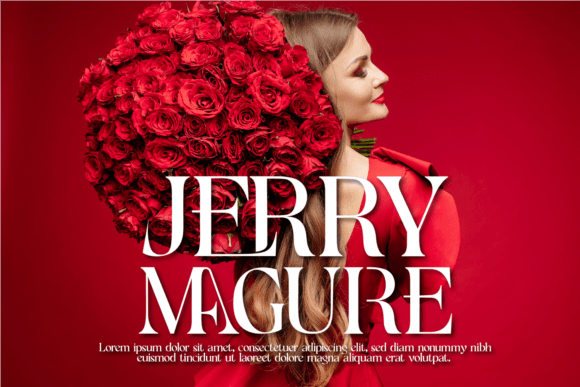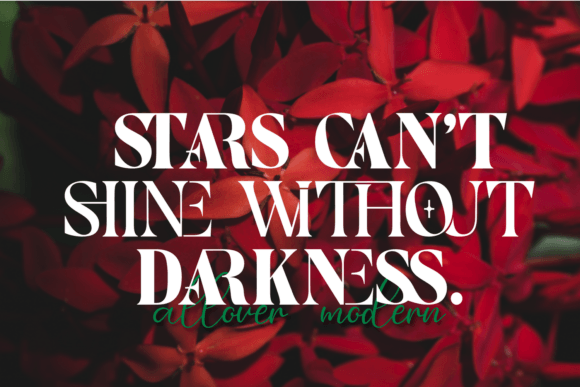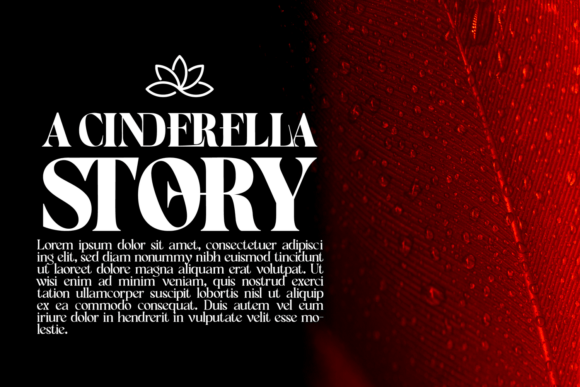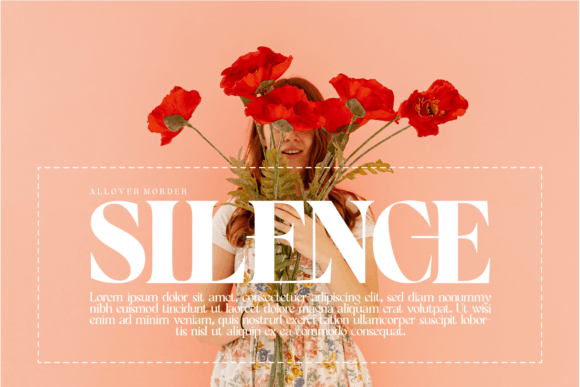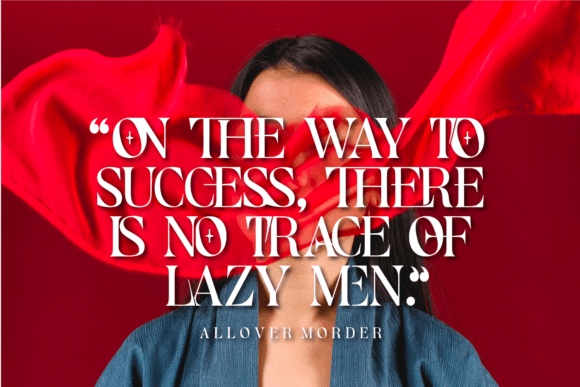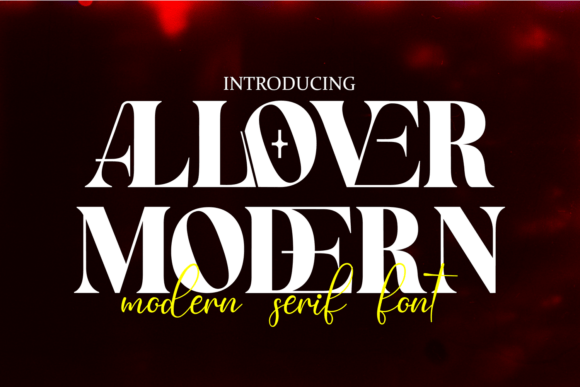
Introducing Allover Modern Font: Elevate Your Design with Elegance and Sophistication
In the world of typography, a font can make or break a design. For designers and crafters looking to add a touch of elegance and sophistication to their projects, the Allover Modern Font is an excellent choice. This stunning serif font boasts large, bold lettering with unique decorative details on each character, making it perfect for a wide range of applications.
What Makes Allover Modern Font Stand Out?
The Allover Modern Font is a versatile and eye-catching typeface that features:
- Large, bold lettering: The font’s generous letterforms make it ideal for headlines, titles, and large-scale designs.
- Unique decorative details: Each character features intricate details that add a touch of elegance and sophistication to any design.
- Versatility: The font works beautifully in both large and small sizes, making it suitable for a wide range of projects.
The Allover Modern Font is perfect for designers and crafters looking to elevate their projects with a touch of elegance and sophistication. Some of the ideal uses for this font include:
- Branding projects: Create a lasting impression with bold, eye-catching lettering that reflects your brand’s personality.
- Logo design: Make your logo stand out with a unique and memorable font that sets your brand apart.
- Product packaging: Add a touch of luxury and sophistication to your product packaging with this stunning font.
- Magazine headers: Create attention-grabbing headlines and titles that draw readers in.
- Text overlays: Add a stylish text overlay to any background image and take your design to the next level.
Why Choose Allover Modern Font?
With so many fonts available, why choose Allover Modern Font? Here are just a few reasons:
- Elegance and sophistication: This font exudes luxury and refinement, making it perfect for high-end designs.
- Versatility: The font’s versatility means you can use it for a wide range of projects, from large-scale designs to small, intricate details.
- Easy to read: Despite its bold and decorative nature, the font remains easy to read, making it perfect for body text and headlines.
Tips for Using Allover Modern Font
To get the most out of the Allover Modern Font, here are a few tips:
- Experiment with sizes: Don’t be afraid to experiment with different sizes to find the perfect balance for your design.
- Pair with complementary fonts: Pair the Allover Modern Font with complementary fonts to create a unique and visually appealing design.
- Use for headlines and titles: Take advantage of the font’s bold and eye-catching nature by using it for headlines and titles.
The Allover Modern Font is a stunning serif font that offers elegance, sophistication, and versatility. With its large, bold lettering and unique decorative details, it’s perfect for a wide range of design projects. Whether you’re a designer or crafter, this font is sure to elevate your projects and take your design to the next level.